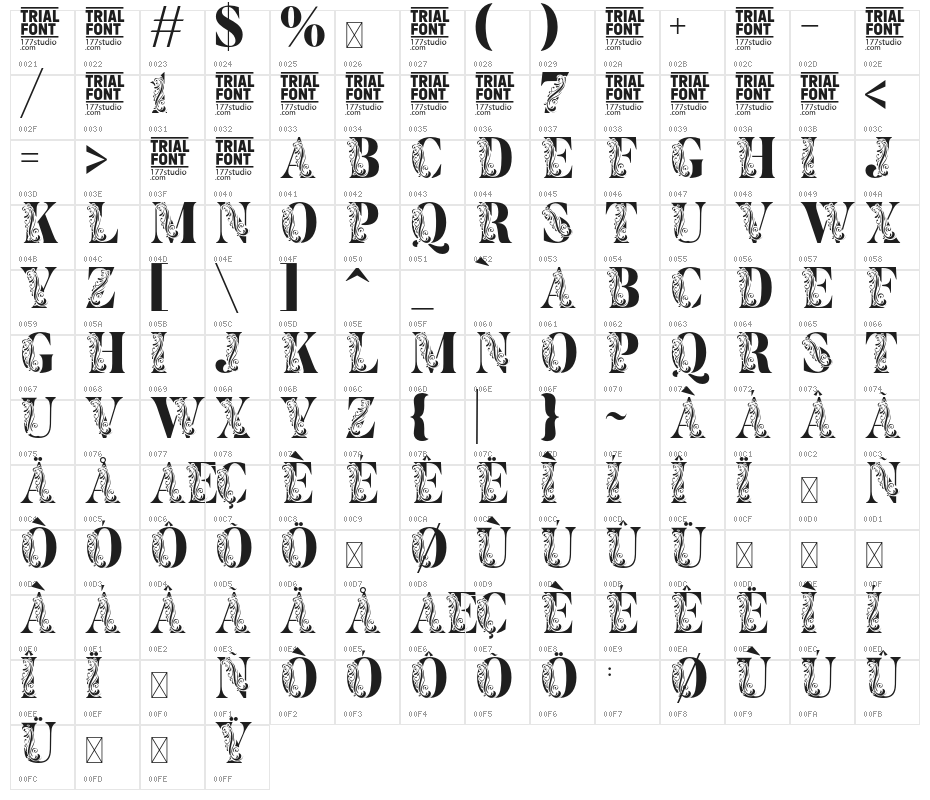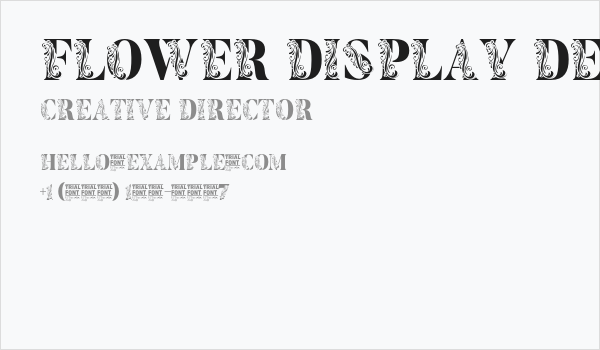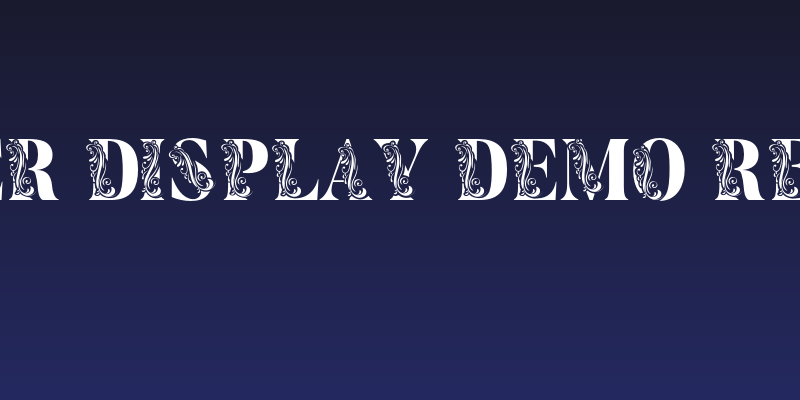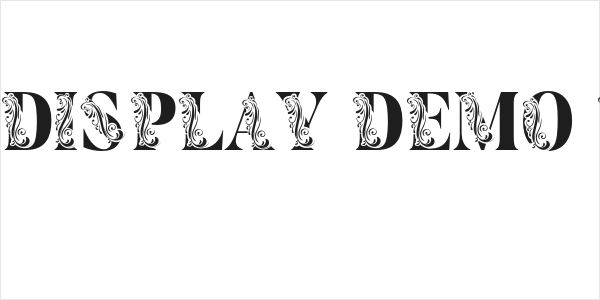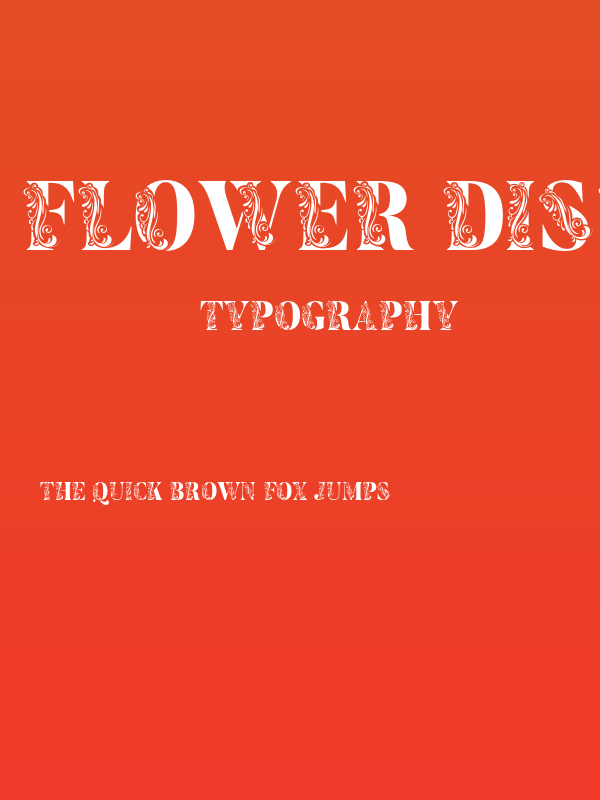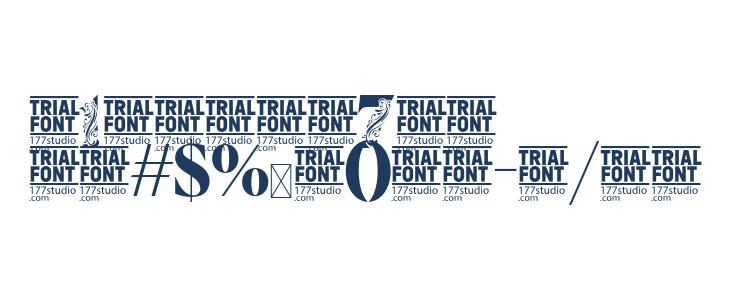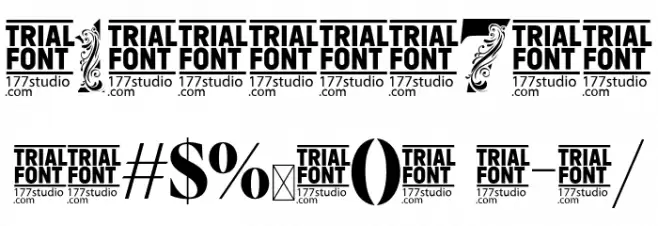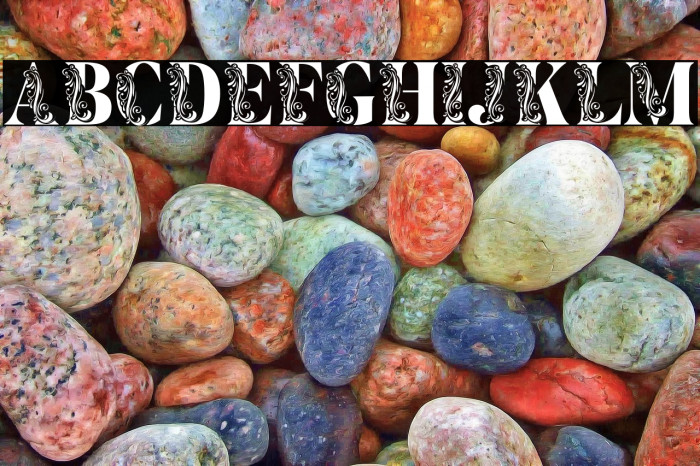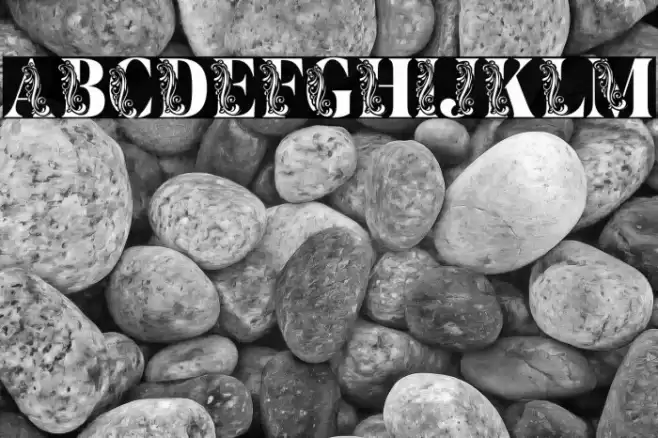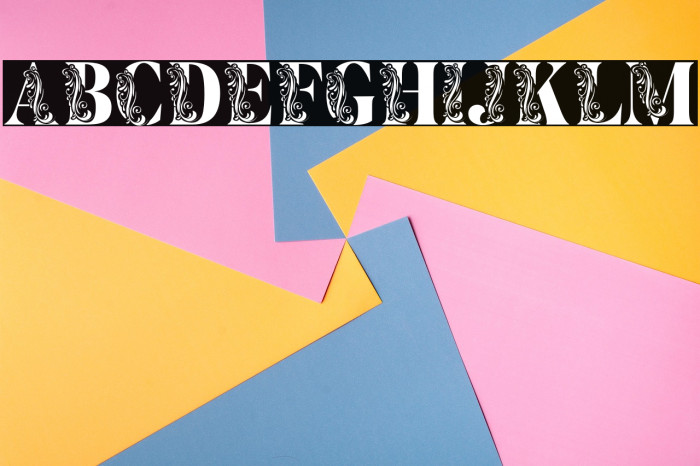
Flower Display Demo Regular Font
Flower Display Demo Regular Description
This decorative font features intricate floral patterns embedded within each character, creating a unique and ornate appearance. The uppercase letters are bold and striking, with elaborate embellishments that give a sense of elegance and sophistication. The lowercase letters maintain the decorative theme, ensuring consistency across the typeface. Numbers and special characters are also adorned with similar floral motifs, making the font suitable for artistic and creative projects. The overall design is eye-catching and perfect for making a statement.
| Proposed Projects | Ideal for wedding invitations, event posters, branding for luxury products, and artistic projects requiring a touch of elegance. |